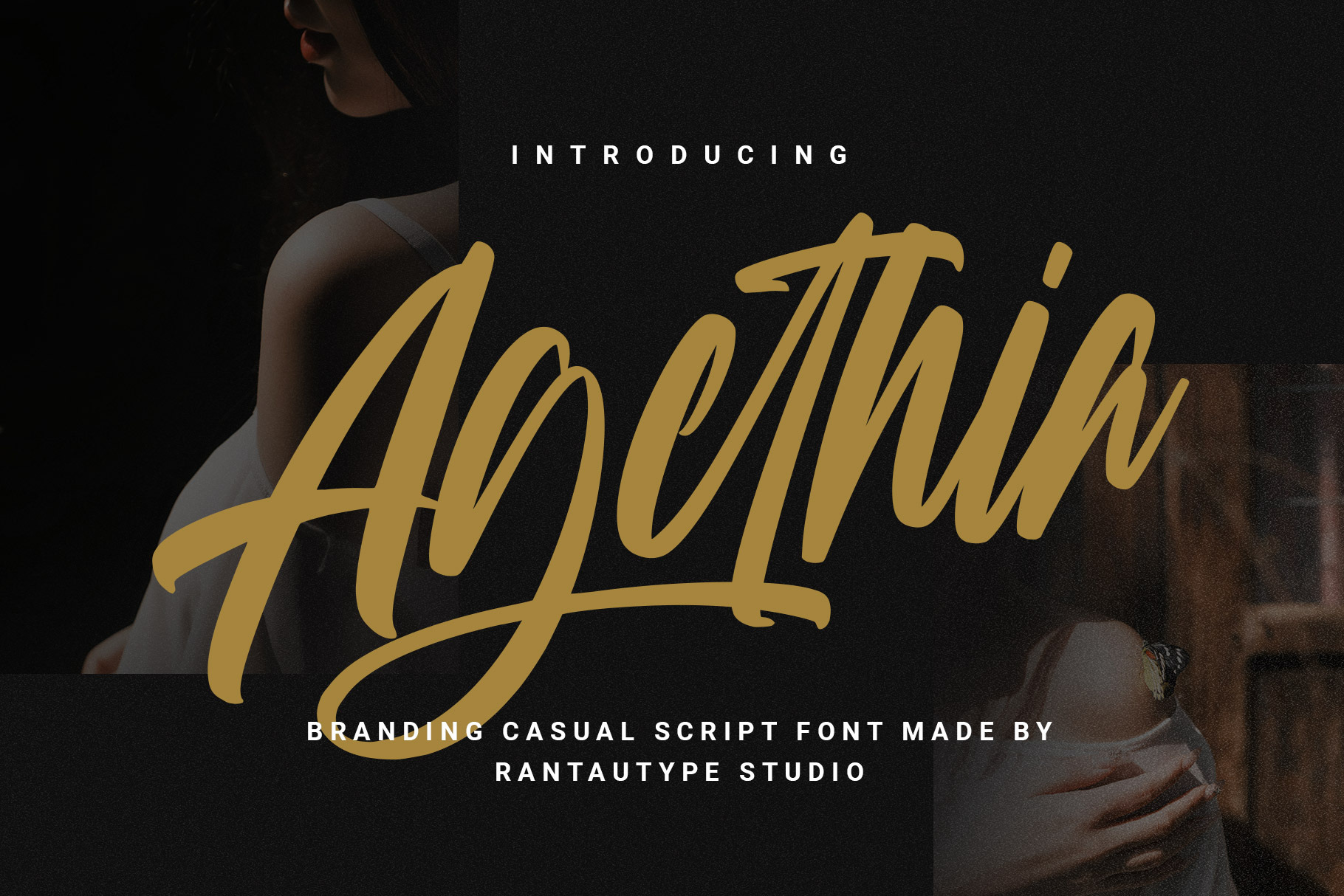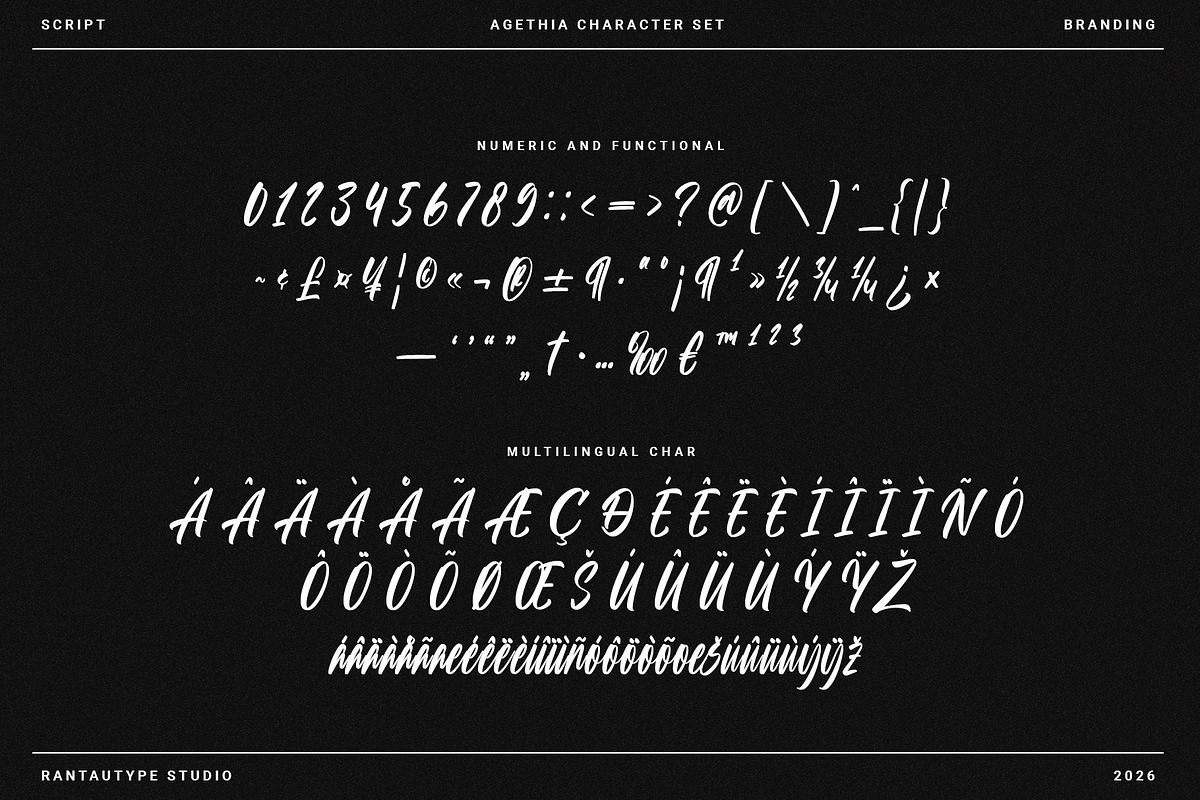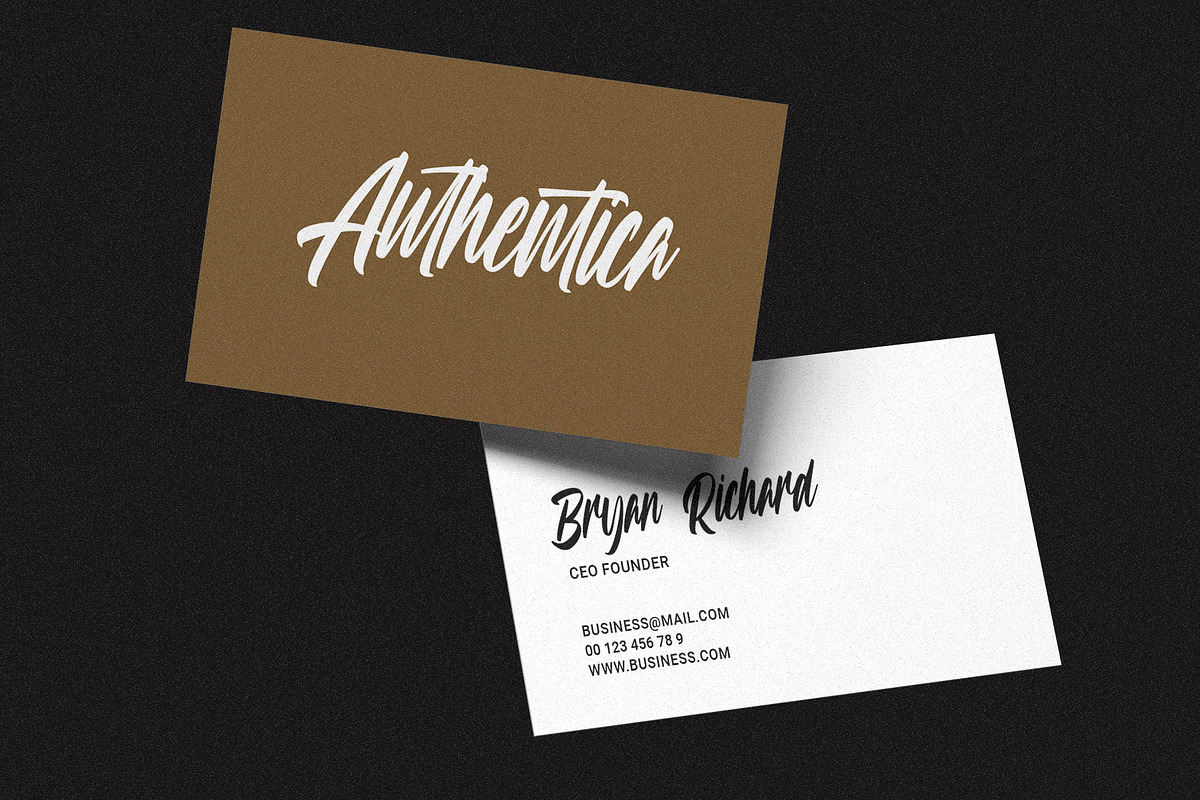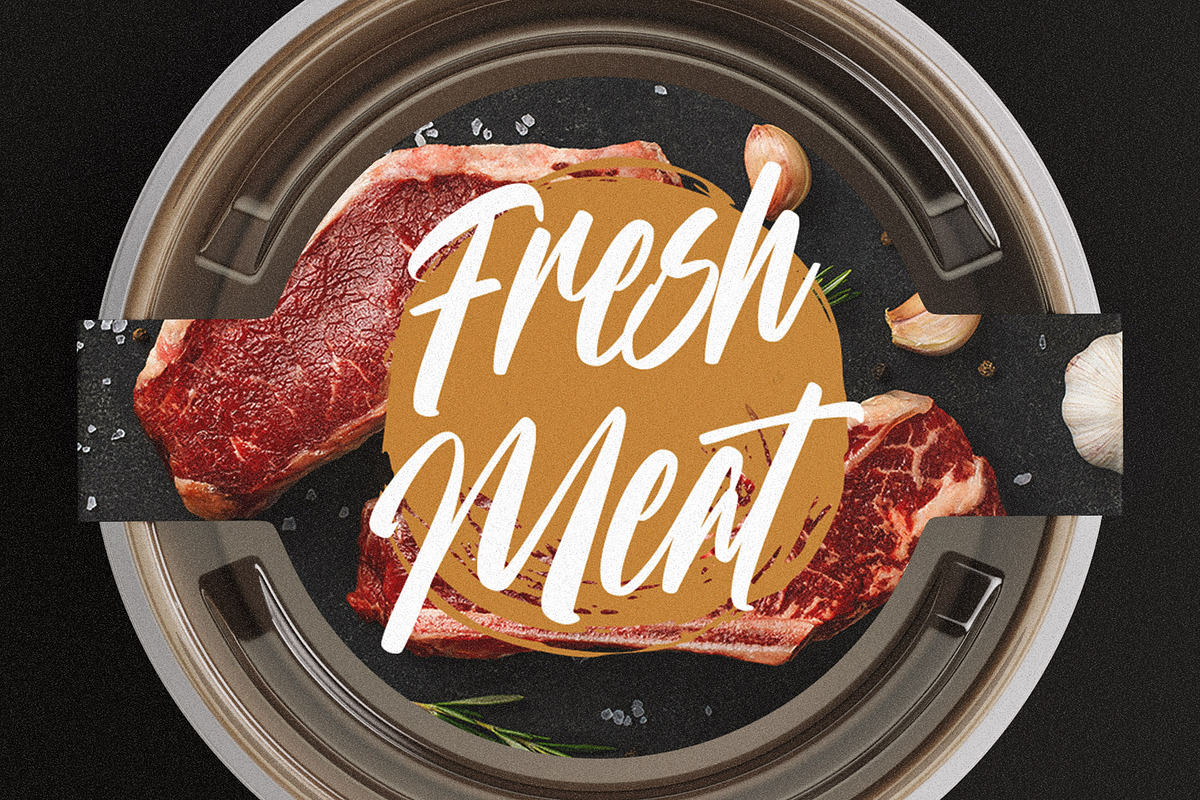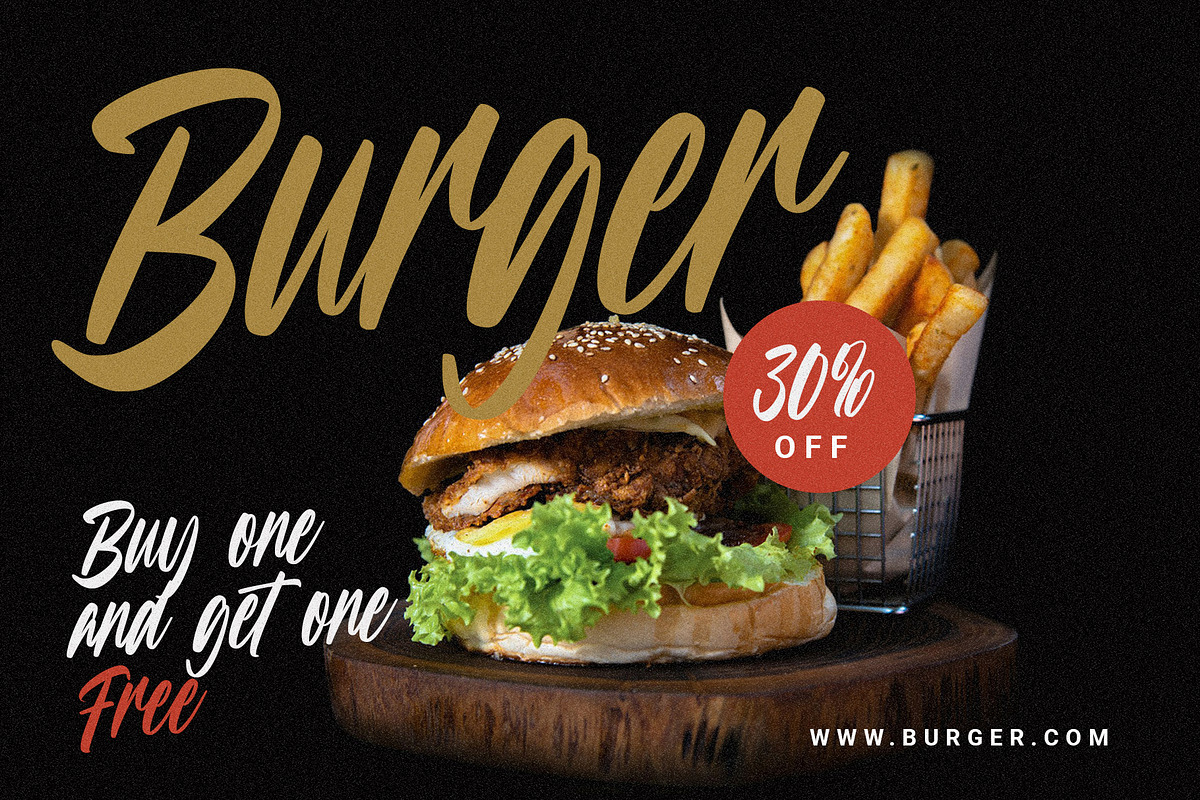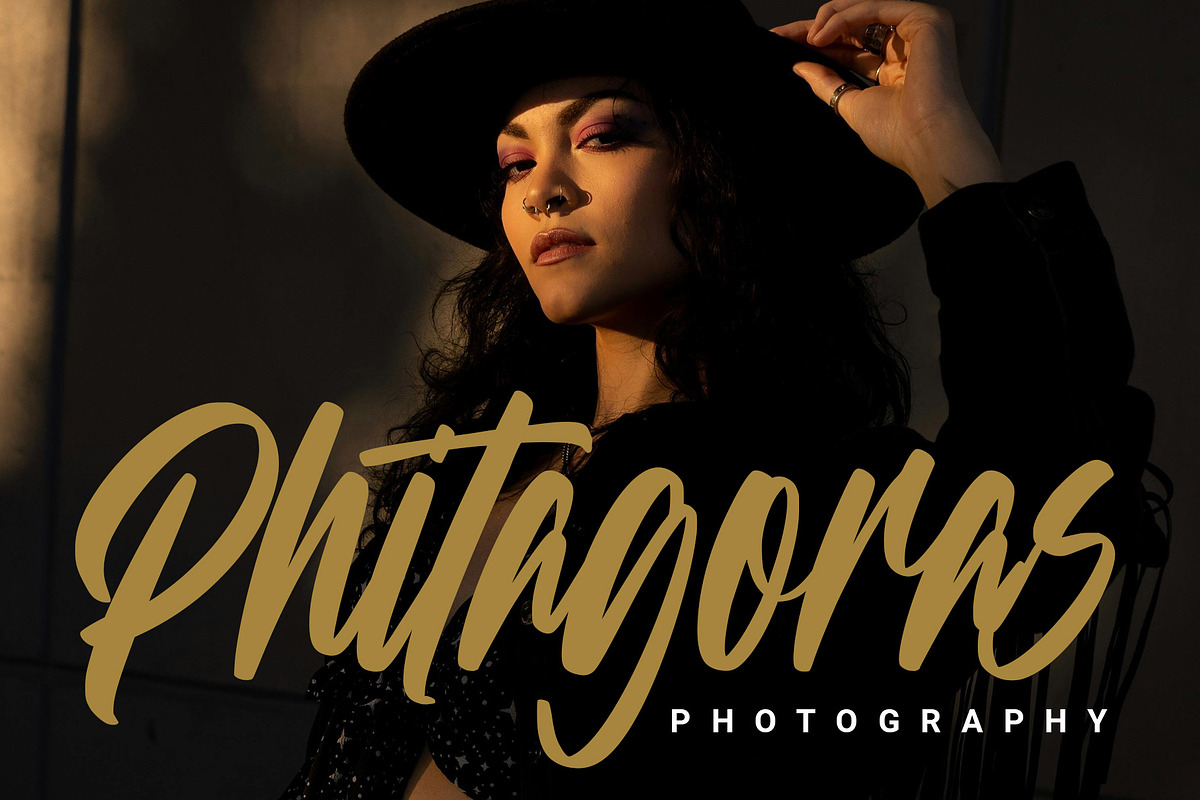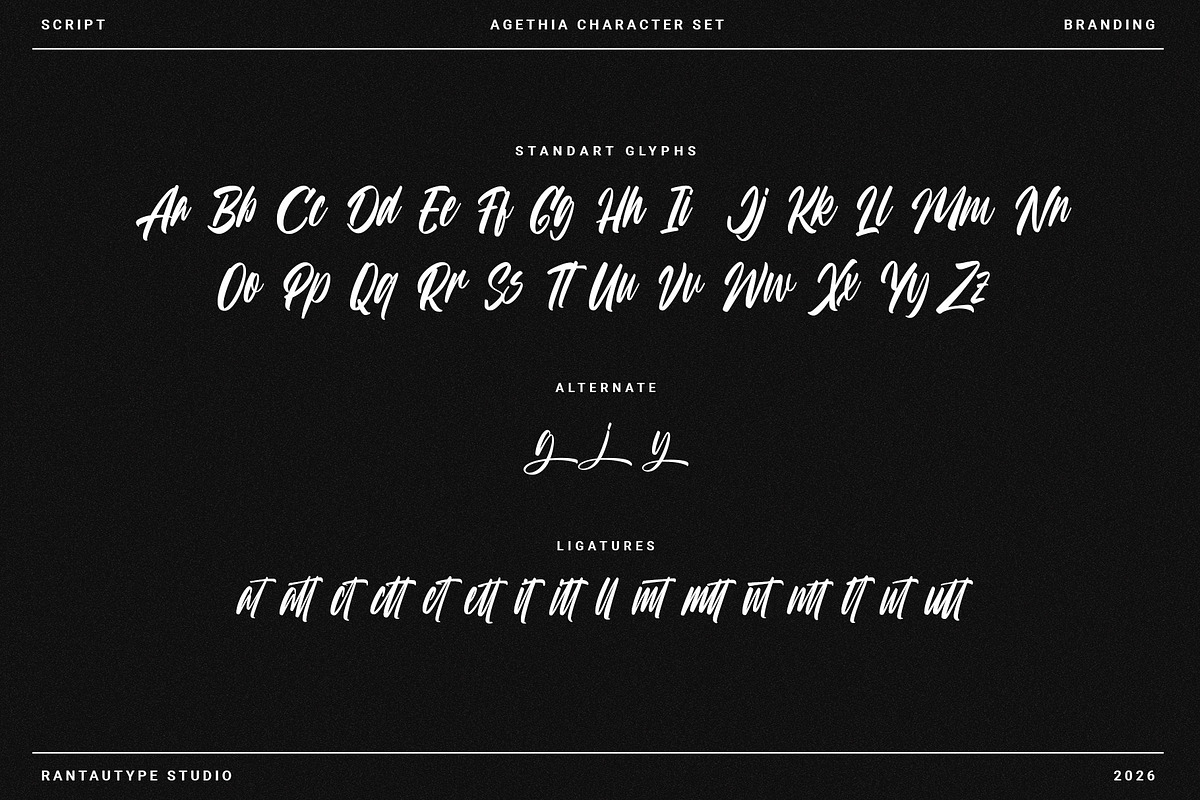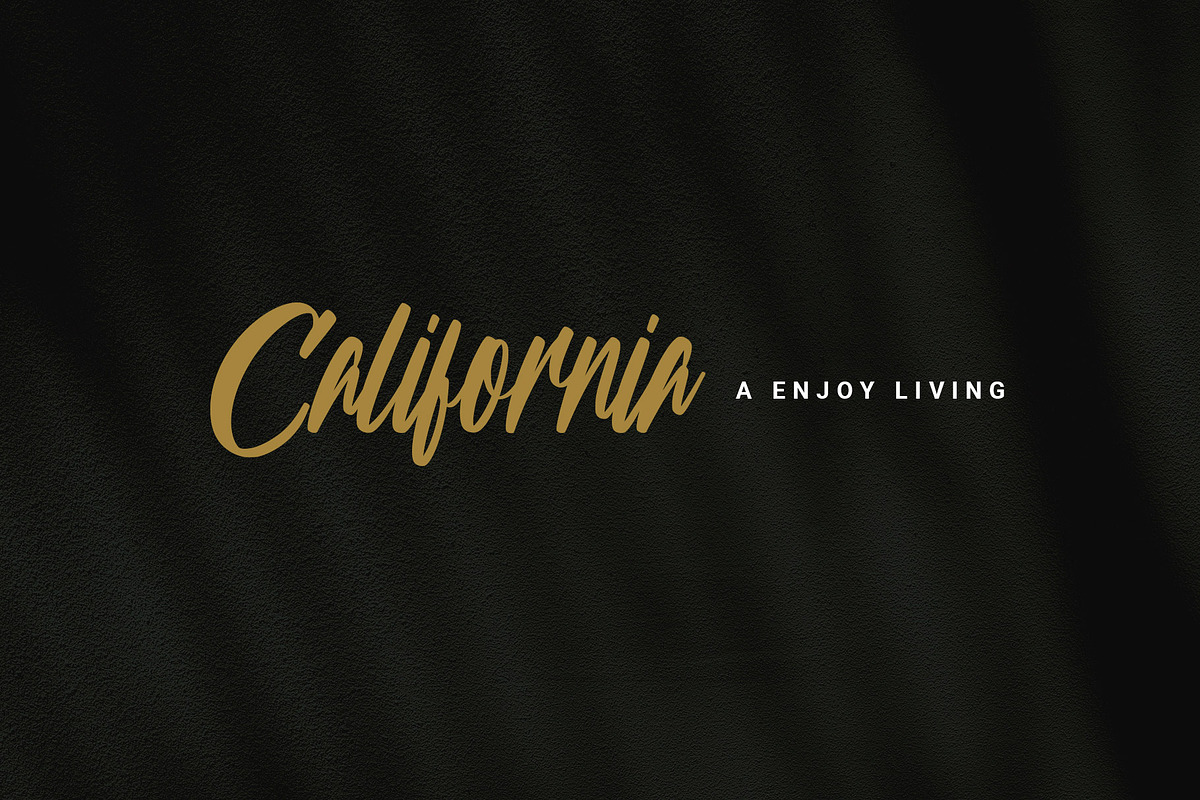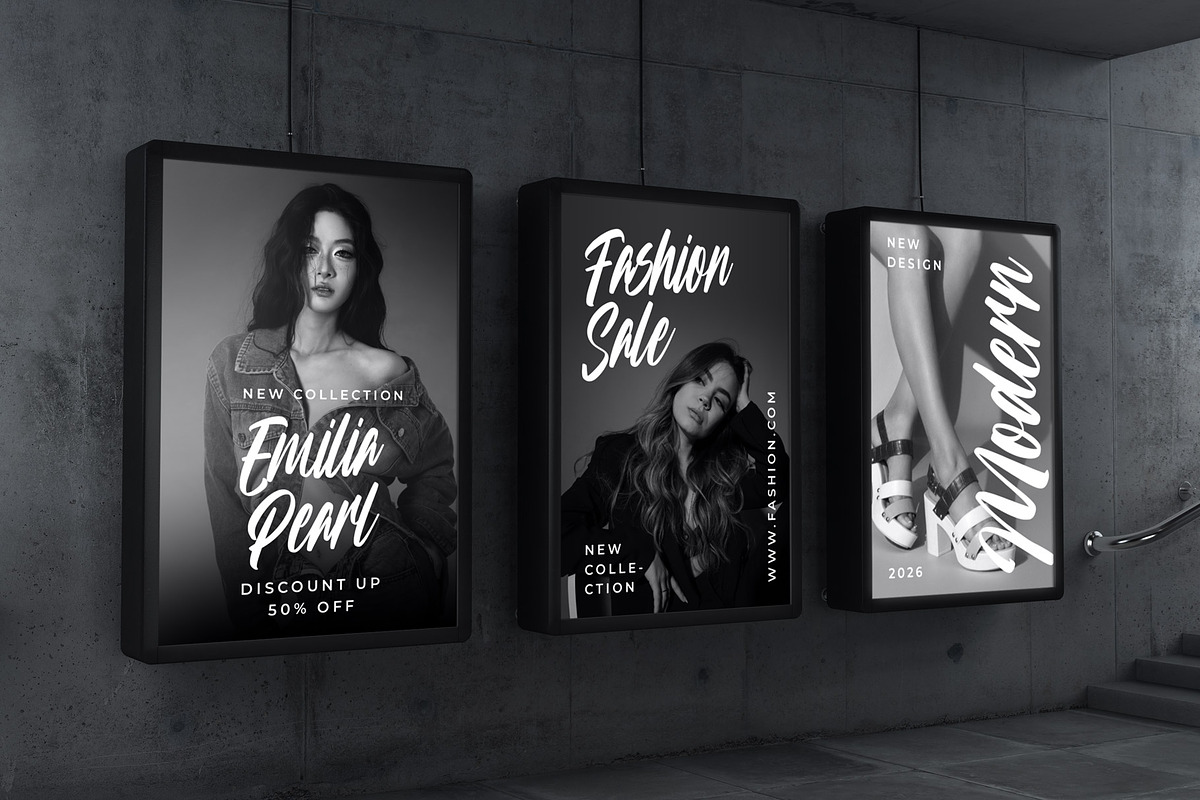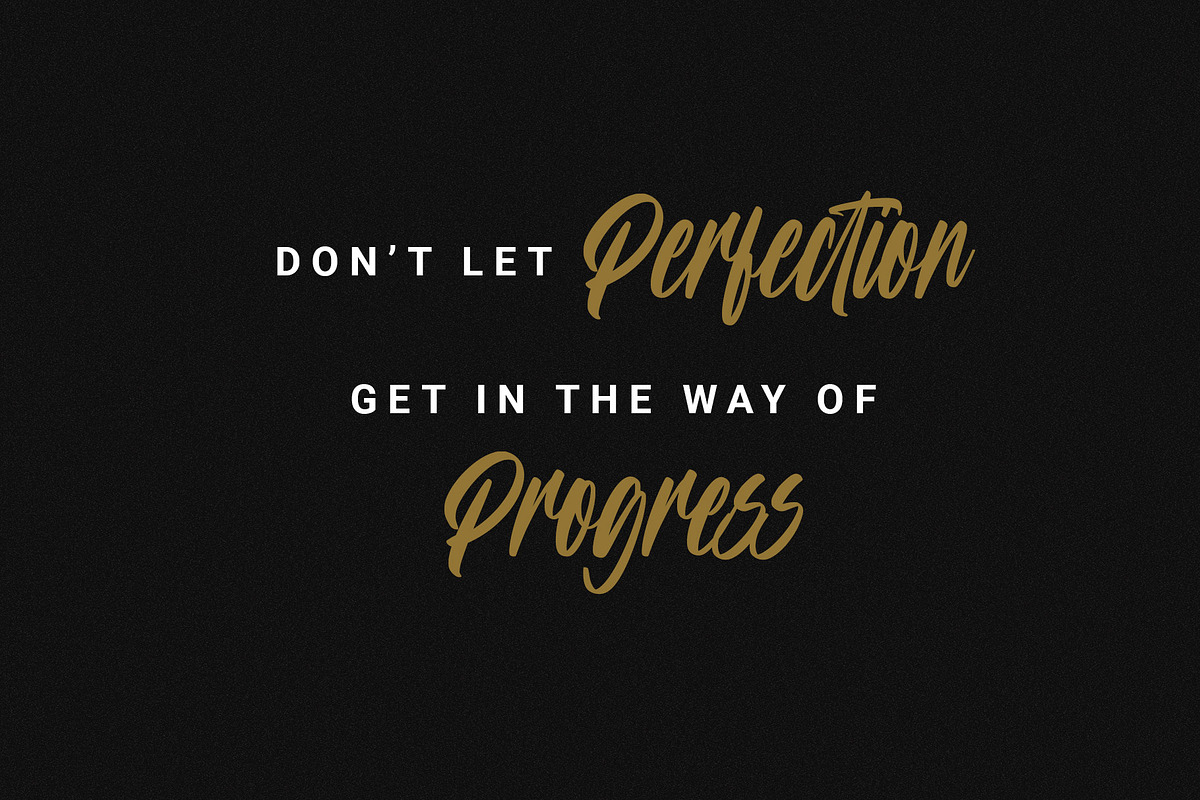
Agethia Branding Casual Script Font
Agethia designed to bring elegance, personality, and authenticity into modern visual communication. Agethia bring a script font carries the natural flow of handwriting, creating a warm and human touch that feels both sophisticated and approachable.
Agethia is a perfectly choice for any creative endeavor, creating, modern, lifestyle design such as logotype, title, cover, branding, invitations, wedding designs, display and magazine, social media posts, advertisements, printed quotes, product packaging, corporate brand, product designs, labels, photography, watermarks, special events and any other project with modern touch.
- Standart Glyphs
- Alternate and ligature
Fonts include Multilingual Character for: Afrikaans, Albanian, Asu, Basque, Bemba, Bena, Breton, Chiga, Cornish, Dutch, English, Estonian, Filipino, Finnish, Friulian, Galician, Gusii, Indonesian, Irish, Italian, Kabuverdianu, Kalenjin, Kinyarwanda, Luo, Luxembourgish, Luyia, Machame, North, Oromo, Portuguese, Quechua, Romansh, Rombo, Rundi, Rwa, Samburu, Sango, Sangu, Scottish, Gaelic, Sena, Shambala, Shona, Soga, Somali, Spanish, Swahili, Swedish, Swiss, German.